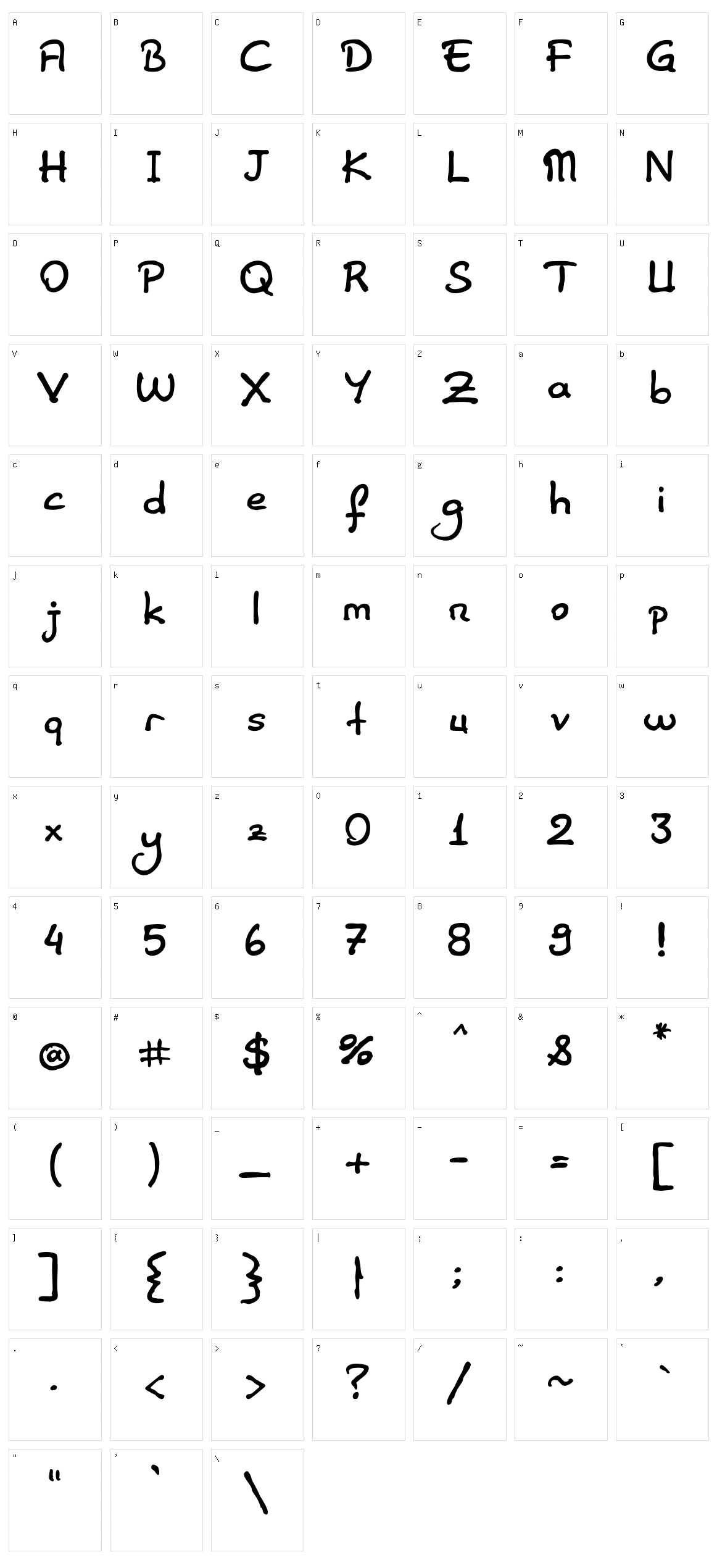
The free font Elif Sans Herif is carefully designed by Ozgur Serdar, showcasing a thoughtful balance of creativity and usability and falls under the Script font style. When you download the ZIP file, it contains only 41.01 KB of font files, making it lightweight and quick to download. Please review the license details below to understand permitted usage and distribution rights. If license information is not available, we recommend using this font for personal projects only or contacting the author directly for commercial usage permissions.